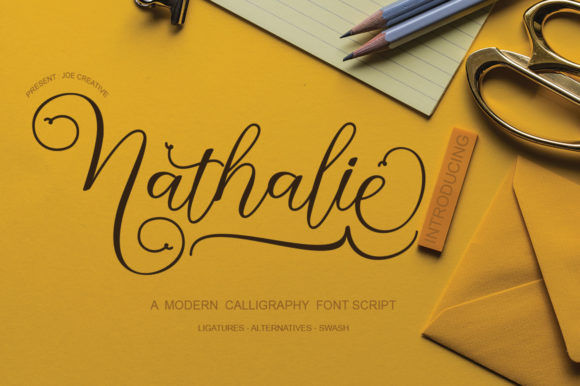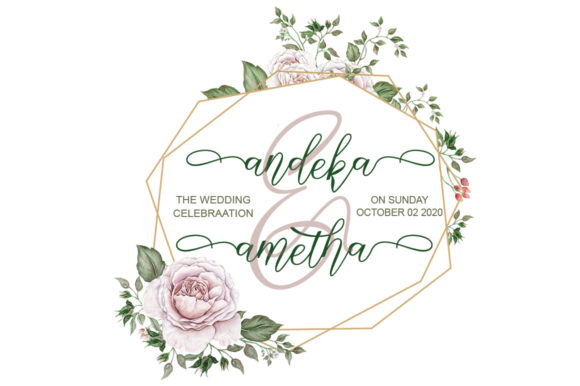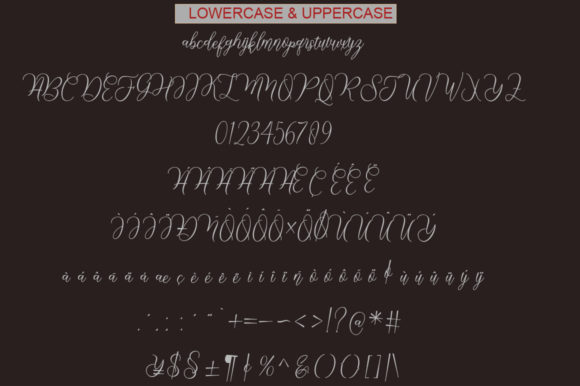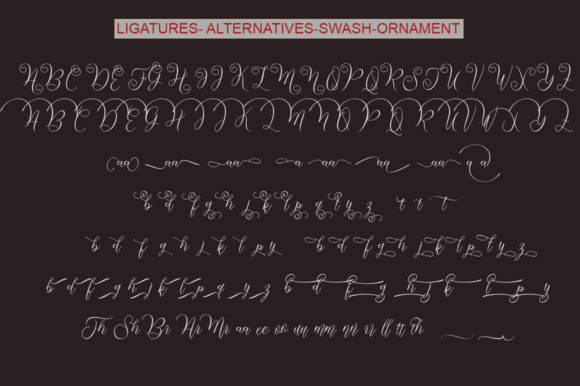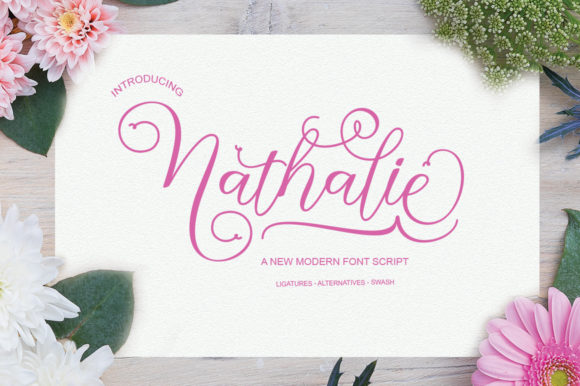
Nathalie Font
About Nathalie Font
Nathalie is a delicate, elegant and flowing handwritten font. It has beautiful and well balanced characters and as a result, it matches a wide pool of designs. Nathalie features a varying baseline, smooth lines, gorgeous glyphs and stunning alternates. Add it to your most creative ideas and notice how it makes them come alive!